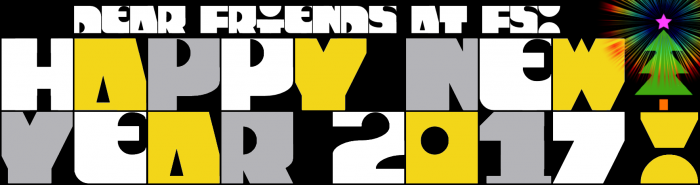
A good name would be "Cutoff" because the top third of ç is cut off...
An impressive chunky design with glorious unforseen cut-off heights, brilliant. Happy Neew Year to you, too :)
Excellent display font! I love it.
this is a great design, and so readable after all
great work
What a great design. Each letter is a close-up of itself slightly off-centre in a square frame. Despite the missing bits thre letters are easily recognizable, and the text is fun to read. 10/10
Another clever designs by elmoyenique, congrats!
Beautiful, it is as if every letter is 'bleeding off a page'. A printed zine or book with each page covered by a letter could work really well.